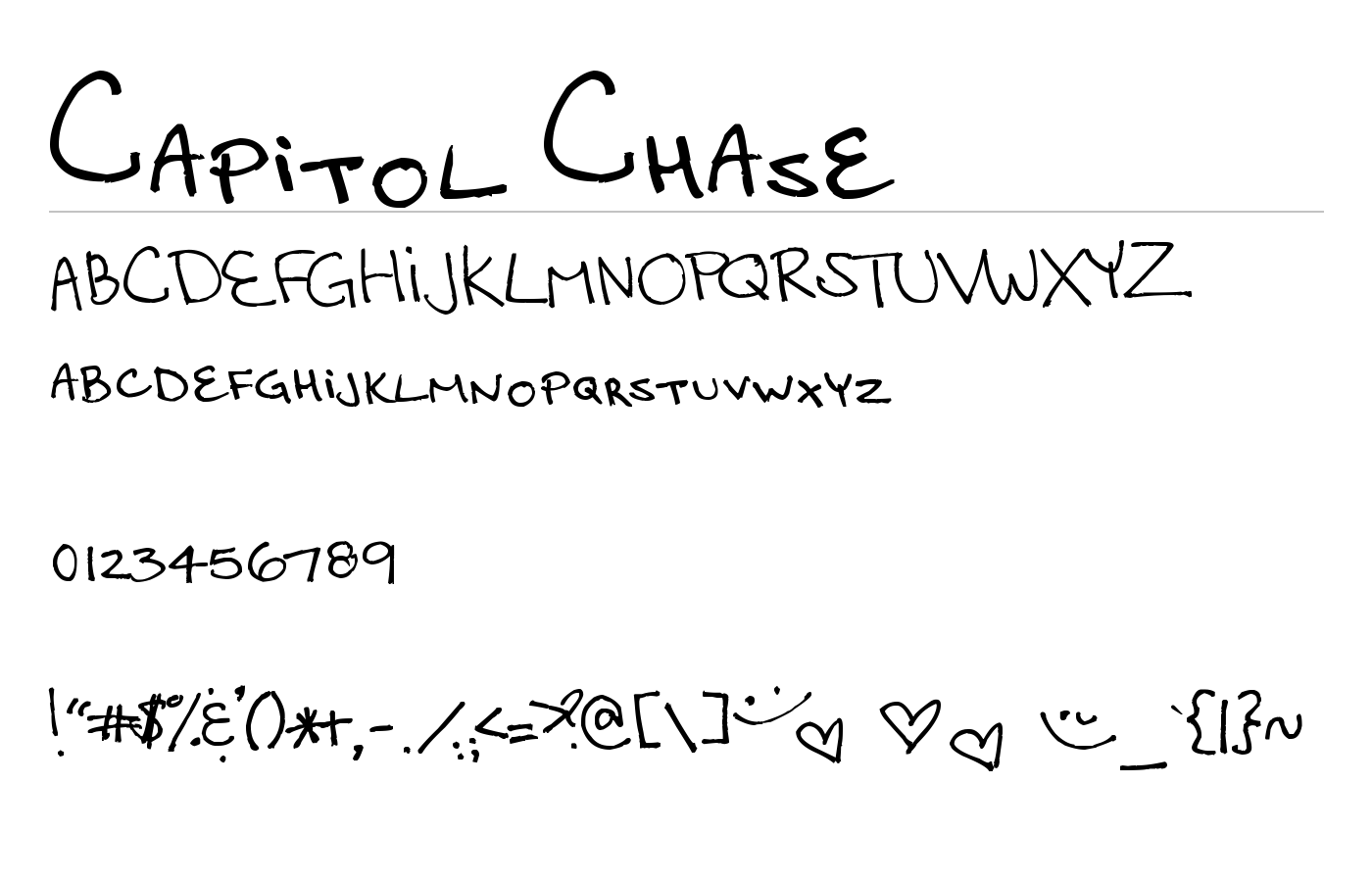
Capitol Chase is a playful, hand-drawn sans serif font that captures a casual, youthful energy with its irregular, sketch-like strokes and lively character shapes. Its light weight and slightly condensed form make it ideal for creative, informal designs such as posters, social media graphics, or branding that seeks a fun and approachable vibe. This font shines in headlines and decorative uses where a personal, handwritten touch is desired.
Capitol Chase Font